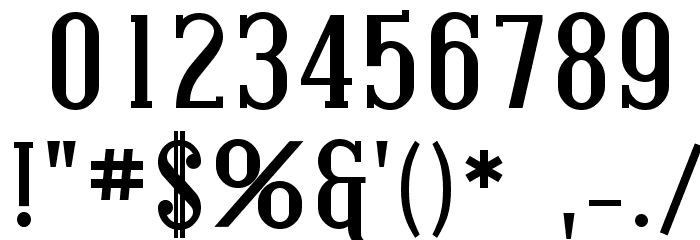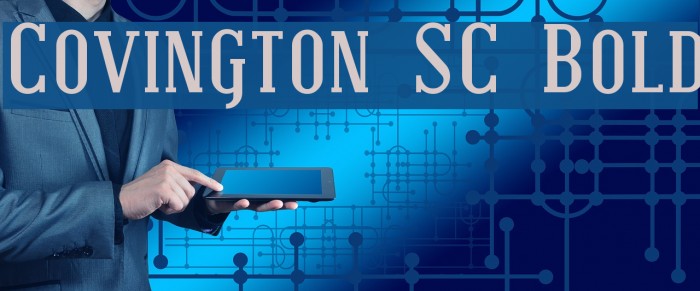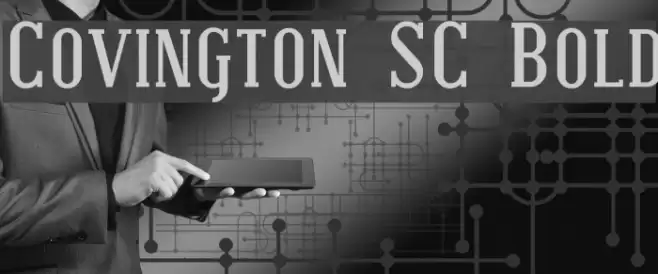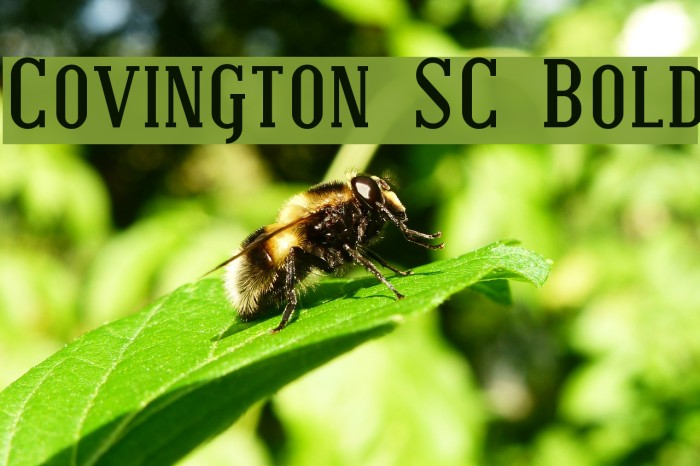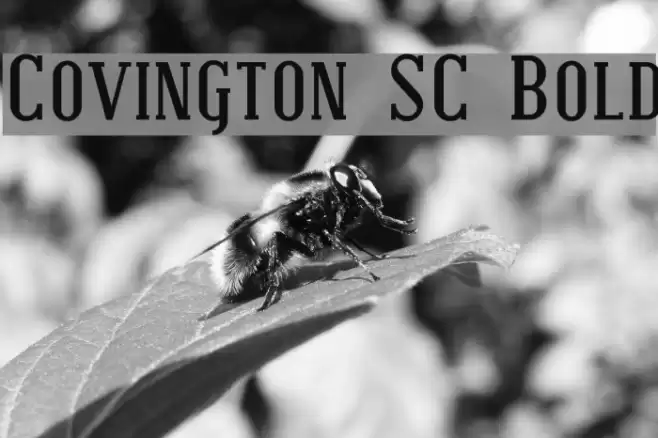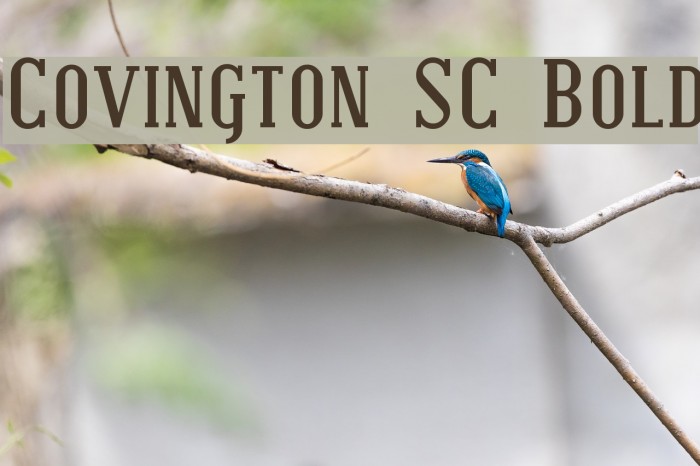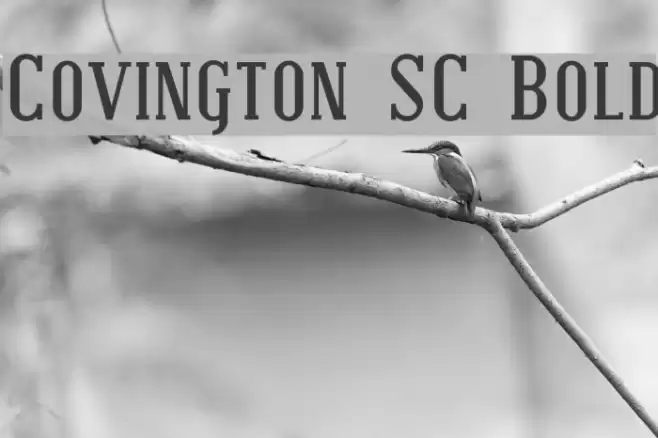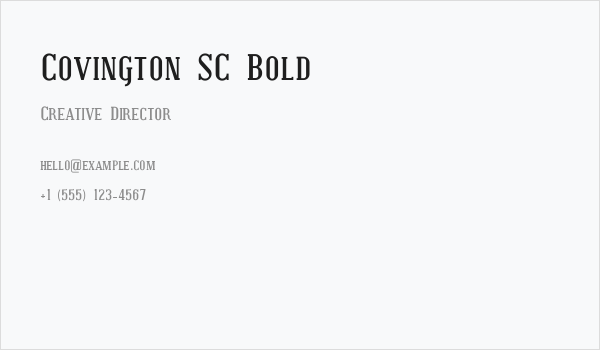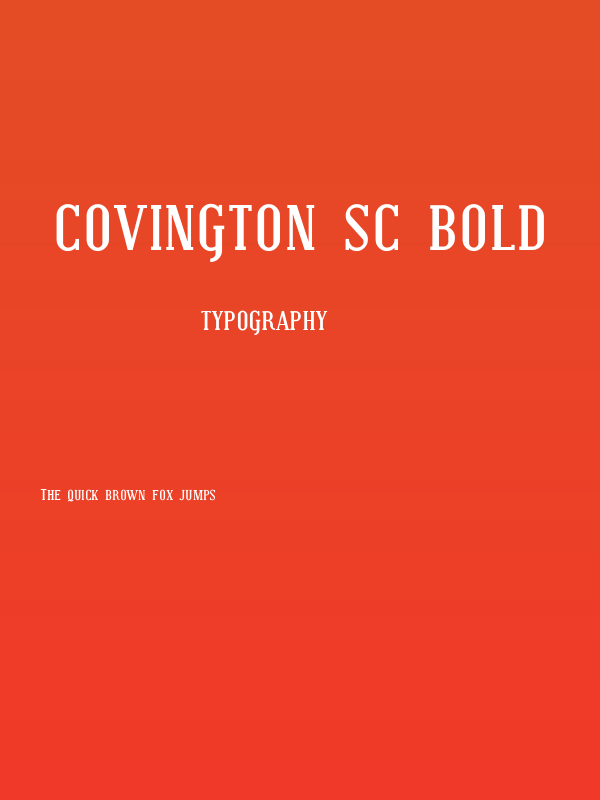
Covington SC Bold Font
Covington SC Bold Description
This font features a bold and commanding presence with its strong, thick strokes and distinct serifs. The uppercase letters are tall and imposing, while the lowercase letters maintain a consistent weight, providing a harmonious balance. The numerals are clear and legible, making them suitable for various applications. Special characters are well-defined, adding versatility to the font's use. The overall design exudes a sense of authority and tradition, making it ideal for projects that require a classic yet impactful look.
| Proposed Projects | Ideal for headlines, posters, branding, and editorial design where a strong, authoritative presence is needed. |